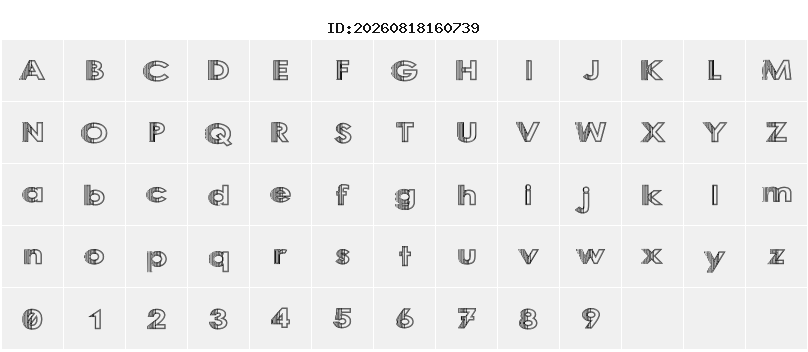
• Font Name: Sliced Iron
About Sliced Iron.ttf
Sliced Iron.ttf is a modern, elegant sans-serif font designed for ultimate readability and visual harmony. Perfect for branding, headlines, web design, and print materials.